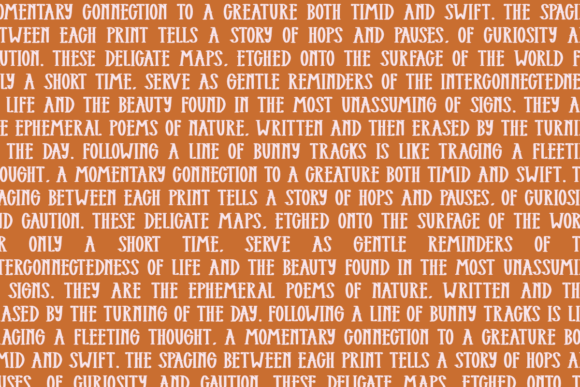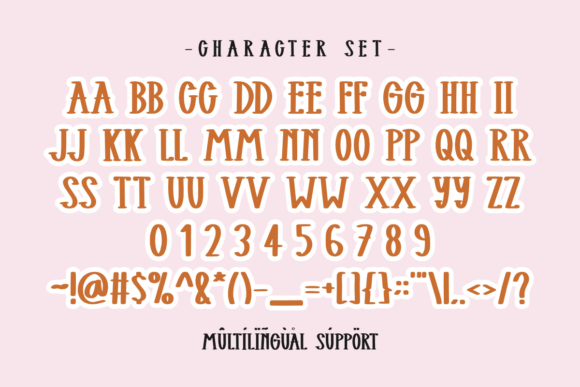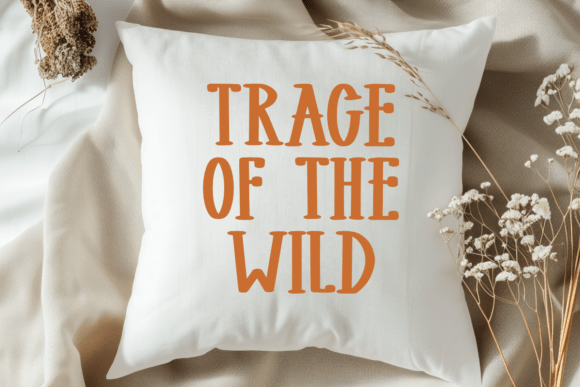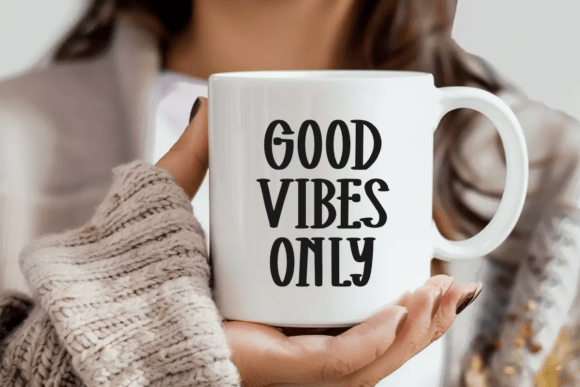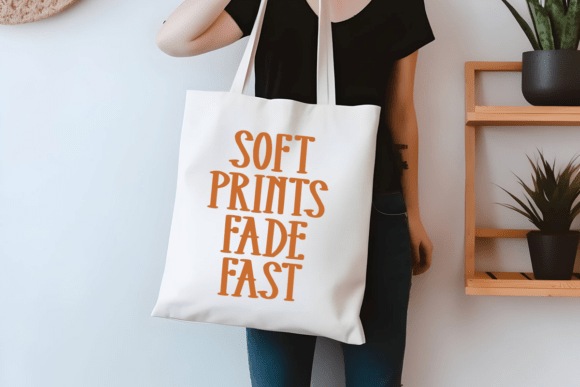
Bunny Tracks Font: A Bold and Charming Slab Serif Font for Your Creative Projects
Are you a designer or crafter looking for a font that can add a touch of personality to your creations? Look no further than Bunny Tracks, a bold and charming slab serif font that’s sure to become a valuable asset in your font library. With its unique blend of playfulness and sophistication, Bunny Tracks is the perfect choice for a wide range of projects, from branding and advertising to crafting and DIY tutorials.
The Characteristics of Bunny Tracks Font
Bunny Tracks is a slab serif font, characterized by its bold and sturdy letterforms with a distinctive rectangular shape. The font features a charming and whimsical feel, making it perfect for projects that require a touch of playfulness and personality. The letters are well-spaced and easy to read, making it suitable for use in a variety of contexts, from headlines and titles to body text and captions.
Why Choose Bunny Tracks Font?
So why choose Bunny Tracks font for your creative projects? Here are just a few reasons why this font is a great addition to your font library:
- Versatility: Bunny Tracks is a versatile font that can be used in a wide range of projects, from formal and professional to playful and creative.
- Legibility: The font is easy to read, even at small sizes, making it perfect for use in body text and captions.
- Personality: Bunny Tracks has a unique and charming personality that can add a touch of whimsy and playfulness to your creations.
How to Use Bunny Tracks Font in Your Projects
Bunny Tracks font can be used in a variety of creative projects, including:
- Branding and advertising: Use Bunny Tracks to create bold and eye-catching headlines and titles that grab attention and leave a lasting impression.
- Crafting and DIY tutorials: Add a touch of personality to your crafting and DIY tutorials with Bunny Tracks, perfect for creating fun and engaging instructions and guides.
- Social media graphics: Use Bunny Tracks to create bold and eye-catching social media graphics that stand out from the crowd.
- Packaging and labeling: Add a touch of whimsy and playfulness to your packaging and labeling with Bunny Tracks, perfect for creating unique and memorable brand identities.
Tips and Tricks for Using Bunny Tracks Font
Here are a few tips and tricks for getting the most out of Bunny Tracks font:
- Experiment with different colors: Bunny Tracks looks great in a variety of colors, so don’t be afraid to experiment and find the perfect hue for your project.
- Mix and match with other fonts: Bunny Tracks pairs well with a variety of other fonts, so try mixing and matching to create a unique and interesting typography combination.
- Use it sparingly: While Bunny Tracks is a bold and eye-catching font, it can be overwhelming if used too much. Use it sparingly to create emphasis and add visual interest to your project.
In conclusion, Bunny Tracks font is a bold and charming slab serif font that’s sure to become a valuable asset in your font library. With its unique blend of playfulness and sophistication, Bunny Tracks is the perfect choice for a wide range of projects, from branding and advertising to crafting and DIY tutorials. Whether you’re a designer or crafter, Bunny Tracks is a great addition to your creative toolkit.